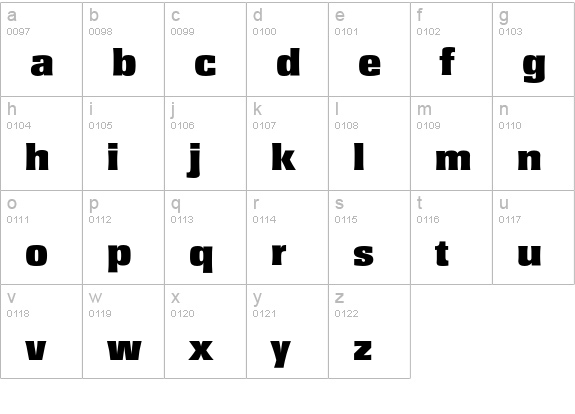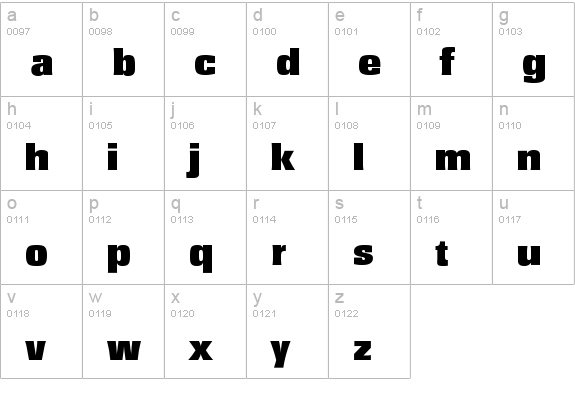
Rochester-Heavy Font Details
Rochester-Heavy is a heavy, high-impact variant in the Rochester typeface family \xE2\x80\x94 well suited to high-impact headlines, posters, and display advertising.
Rochester-Heavy is a bold and striking font that commands attention with its strong and robust appearance. This typeface exudes confidence and power, making it perfect for headlines, titles, and other prominent design elements. With its thick strokes and clean lines, Rochester-Heavy makes a bold statement in any project. And the best part? Rochester-Heavy is available for free download at FontsMarket.com. This means you can easily access this impressive font to elevate your designs without any cost. Don't miss out on the opportunity to add Rochester-Heavy to your font collection and make a lasting impression with your creative projects.